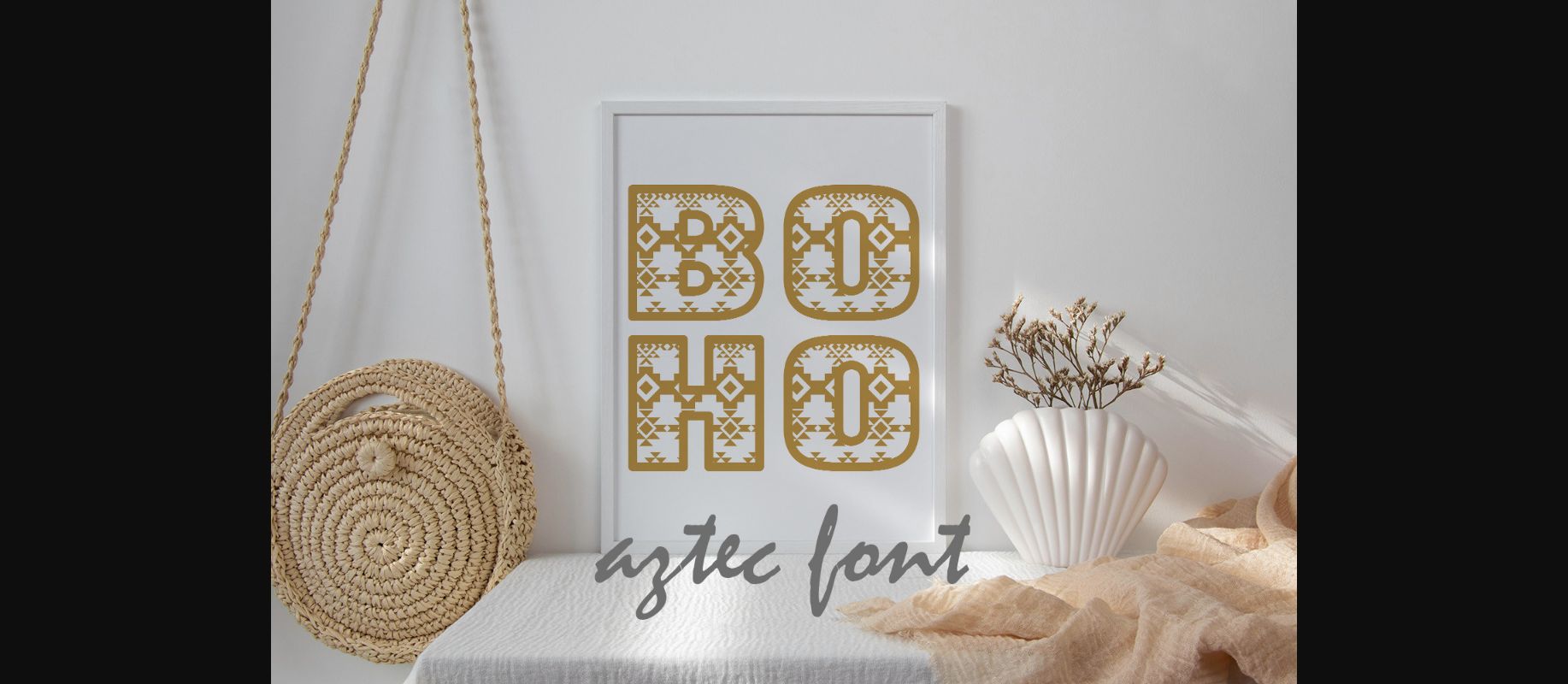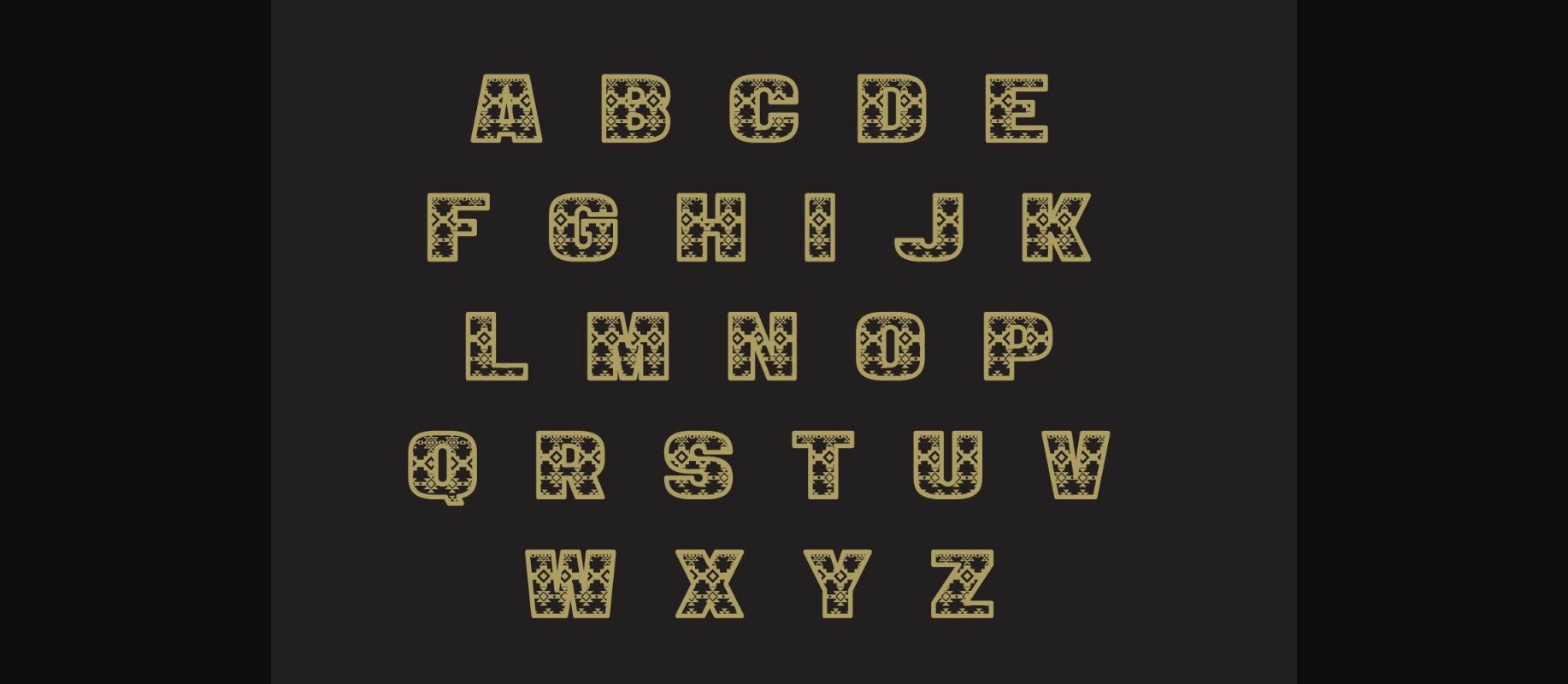
About Boho Aztec Font
Boho Aztec is an adorable font with split letters, suitable for digital projects, cards, invitations, weddings, logos, kids monograms, website or crafts projects.
This original look will appeal to a wide range of crafty ideas, from letterheads and titles, to stationery.